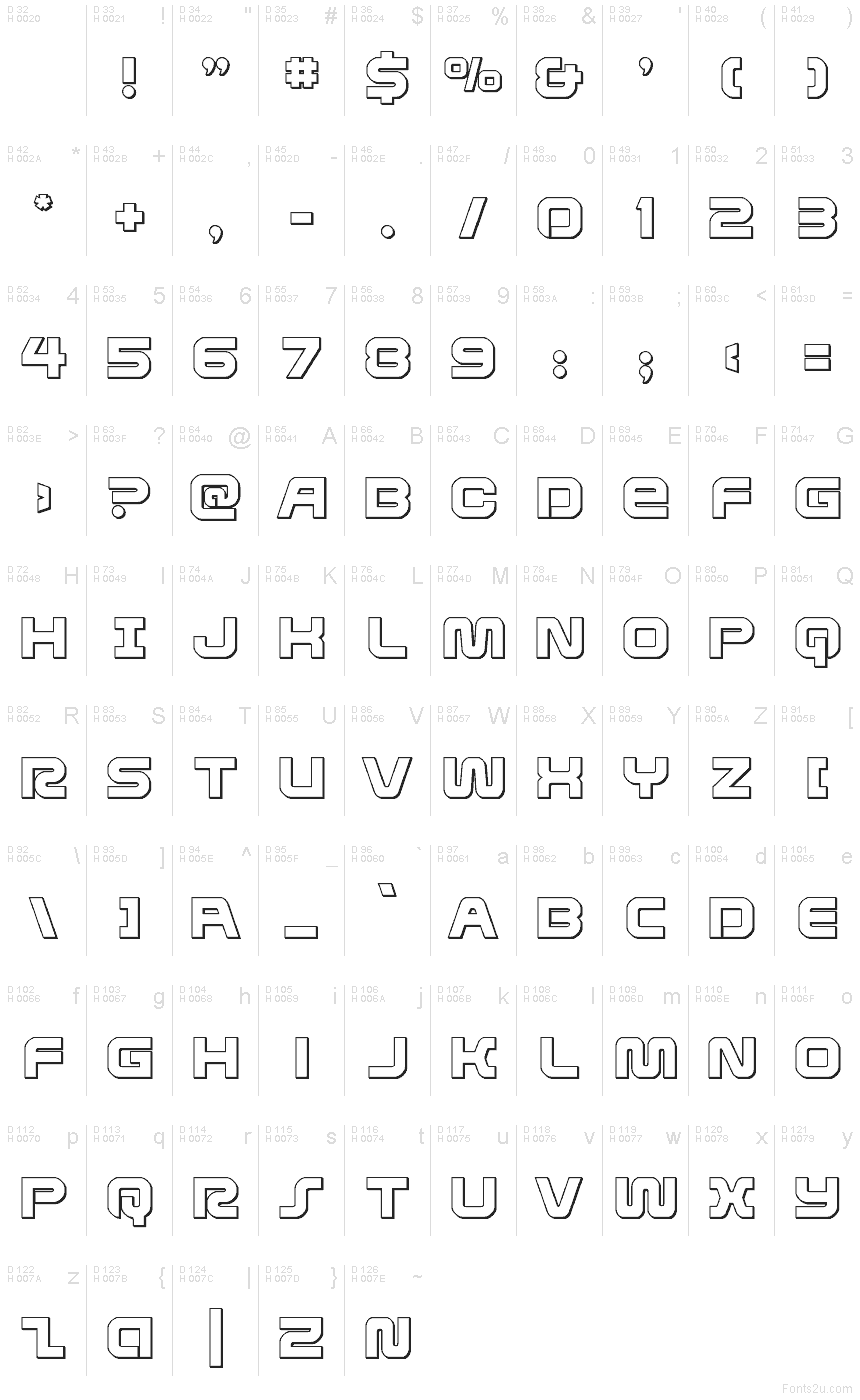
Rocket Command 3D
Rocket Command 3D font from Iconian Fonts takes a futuristic style with three-dimensional letter effects. The expanded geometric display structure excites us about possible endless applications both in the current time and foreseeable future. That’s because its minimalist design has a technical aesthetic inspired by a retro-futuristic feel which can be equally compelling to modern audiences.
The free display typeface has heavy bold text whose depth makes it more appealing for projects with big concepts and ideas including logos, websites, mobile apps, video games, printings, posters or flyers, magazine or book covers, headings or titles within articles.